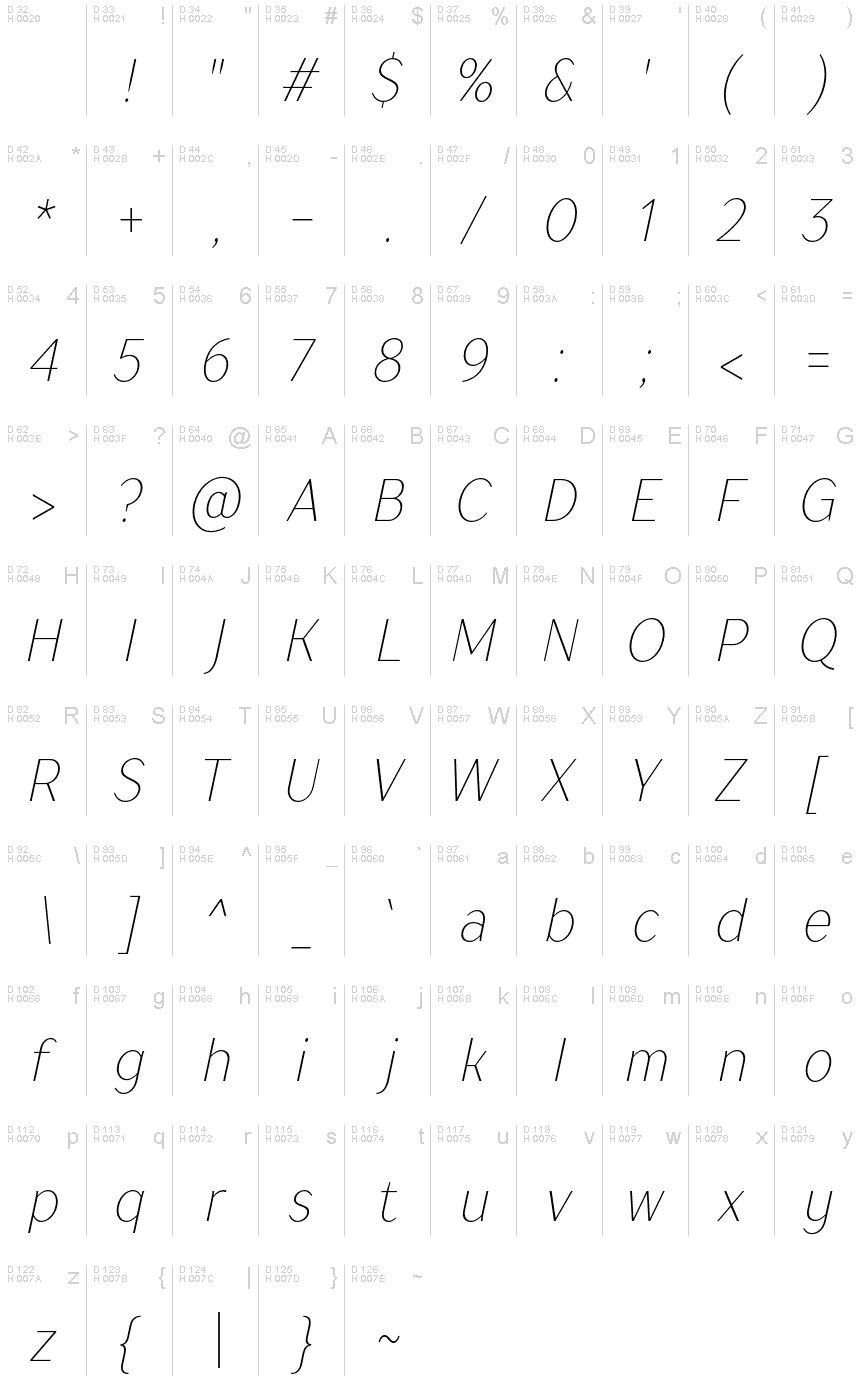
TT Drugs Trl Cnd Thin Italic
TT Drugs Cnd Thin Italic is a sleek and modern sans serif font from the renowned TypeType Foundry. Its ultra-light weight and stylish italic design make it perfect for creating minimalist logos, elegant headlines, and sophisticated branding materials. This font has a condensed width that's ideal for fitting large amounts of text into small spaces, making it well-suited for use in editorial designs such as magazines, newspapers or books. With its clean lines and contemporary style, TT Drugs Cnd Thin Italic is also great for creating eye-catching website designs or social media graphics that demand attention.